Book of the Month (July 2023): “Men Who are Possessed by the Type”
Today, I would like to introduce “Men Who are Possessed by the Type,” written by Jiro Katashio.
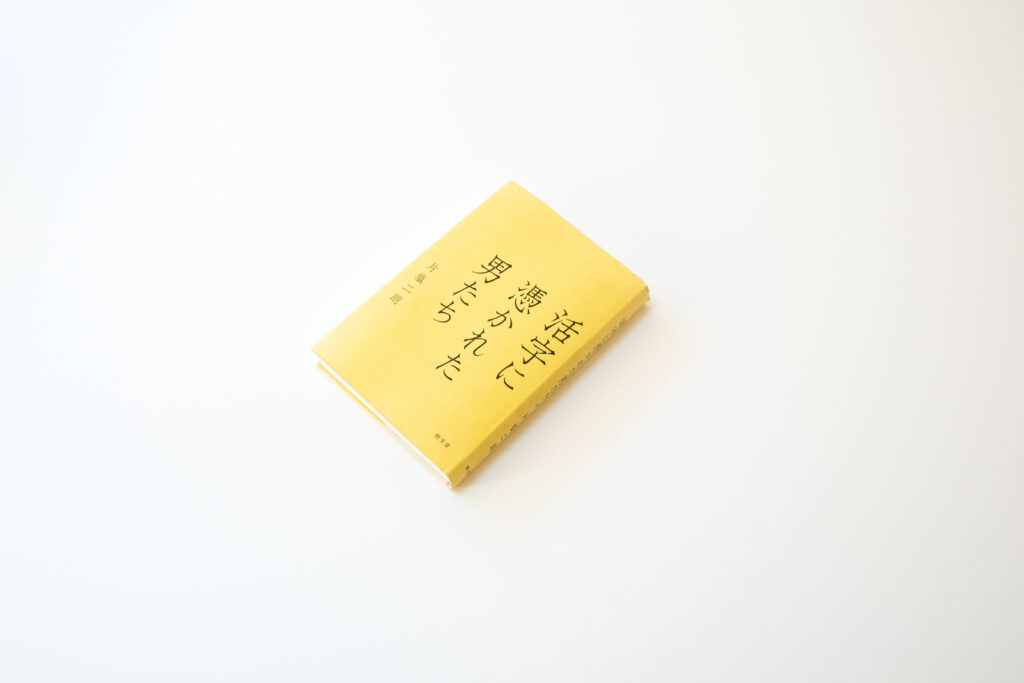
Centered in Japan in the early Showa era, crossing the era and different countries, 11 men who were deeply involved in letterpress printing are described. This is a recommended book for anybody interested in learning about the history of printed word culture in Japan. Various types have been developed historically, but many arranged types suffered damage and were dissolved during wartime. It is not a matter-of-fact history book. Along with the episodes related to each man and ways of the world at the time, history is told. The content of the book is dense with careful reading and understanding of the documents and thorough interviews, conducted through family visitation, etc.
An anecdote that left an impression on me was the fact that many Tokugawa clan retainers were in a group that played an important role in letterpress printing in the early Meiji era. As there are many convincing reasons for it, please check this book. out, if you are curious.